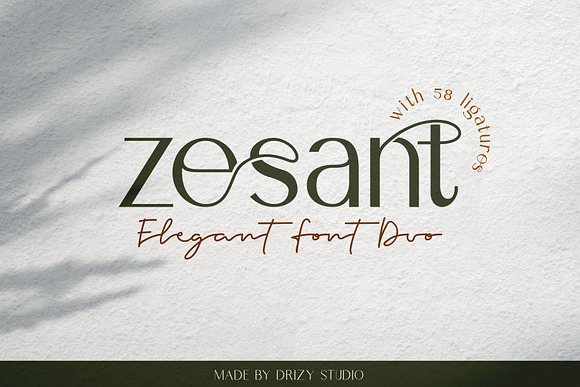
Zesant Font
Zesant Font is perfect for contemporary fashion brands, modern tech company logos, minimalist architecture signage, cutting-edge design studios, progressive startup identities, sleek product packaging, innovative web interfaces, avant-garde art galleries, futuristic brand campaigns, and sophisticated digital platforms.
What makes Zesant Font so exciting is its remarkable ability to embody forward-thinking innovation and contemporary sophistication through letterforms that seem to anticipate the future of design while maintaining perfect clarity and professional appeal. This cutting-edge typeface captures the essence of modern progress and technological advancement with characters that radiate confidence, innovation, and sophisticated simplicity. The font's progressive design elements perfectly balance futuristic aesthetics with timeless functionality, creating an indispensable tool that communicates innovation leadership, modern luxury, and design excellence, making it essential for brands positioning themselves at the forefront of their industries.
Zesant Font comes in multiple font families including Regular, Bold, Light, Italic, Bold Italic, Ultra Light, Medium, and Future variations. Each family member maintains the core innovative characteristics while offering different sophistication levels and stylistic approaches to suit various contemporary design requirements.
The futuristic precision in Zesant Font makes it particularly effective for technology companies and innovative brands where conveying cutting-edge capabilities and design leadership is crucial for market positioning and competitive advantage. Its streamlined letterforms work exceptionally well across all digital platforms and modern applications, maintaining consistent visual impact whether used for mobile interfaces or large-scale architectural installations.
Innovation marketing professionals recognize how Zesant Font transforms ordinary brand communications into powerful statements of technological advancement and design excellence. The typeface's progressive character set includes comprehensive international language support and advanced typographic features that accommodate complex modern branding requirements and global technology markets.
For creative professionals serving tech innovators, design-forward brands, and future-focused companies, Zesant Font serves as the ultimate foundation for establishing memorable visual identities that capture the essential qualities of innovation leadership, contemporary sophistication, and progressive vision that define successful brands shaping tomorrow's technological landscape and design evolution.